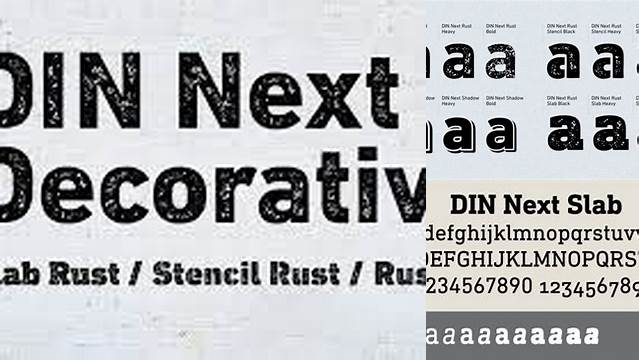
Hey guys! Ever stumbled upon a font that just clicks? Well, let's dive into the world of DIN Next Decorative Pro Slab Rust Black, a font that’s been turning heads and adding a unique touch to designs everywhere. If you're on the hunt for a font that’s both modern and has a vintage vibe, stick around. We're going to explore everything about this font, from its origins to how you can snag it for your projects. Trust me, by the end of this article, you’ll be itching to use it!
What is DIN Next Decorative Pro Slab Rust Black?
Let's start with the basics. DIN Next Decorative Pro Slab Rust Black isn't just any font; it's a carefully crafted typeface that blends the functionality of DIN Next with a decorative, rustic twist. The “Slab” part refers to the slab serifs, those blocky or rectangular serifs that give it a sturdy, industrial feel. The “Rust Black” adds a weathered, vintage effect, making it perfect for designs that need a bit of character. Think old-school posters, industrial logos, or anything that needs a touch of ruggedness. This font stands out because it manages to be both highly readable and visually interesting, a rare combination in the world of typography. The attention to detail in each character ensures that your message is conveyed clearly while maintaining an aesthetic appeal that grabs attention. Whether you’re designing a website, creating marketing materials, or working on a personal project, this font can add a unique and memorable touch.
History and Origin of DIN Next Fonts
To truly appreciate DIN Next Decorative Pro Slab Rust Black, it helps to know where it comes from. The DIN (Deutsches Institut für Normung) fonts have a long history, originating in Germany as standardized typefaces for engineering, traffic signs, and administrative uses. Known for their legibility and simplicity, DIN fonts became a staple in modern design. Over time, designers started playing with variations, leading to the creation of the DIN Next family. These newer versions retained the original’s clarity but added more personality and versatility. DIN Next Decorative Pro Slab Rust Black is one such evolution, taking the classic DIN foundation and injecting it with a decorative, weathered aesthetic. Its roots in standardization make it incredibly functional, while the decorative elements ensure it stands out. Understanding its origins provides a deeper appreciation for the font's unique blend of practicality and style. This font is not just a visual element; it's a piece of design history that brings a sense of heritage and authenticity to any project.
Key Features of the Font
What makes DIN Next Decorative Pro Slab Rust Black so special? Several key features contribute to its unique appeal. First, the slab serifs give it a strong, grounded appearance, making it ideal for headlines and titles. The “Rust Black” effect adds a layer of texture and depth, mimicking the look of aged metal or vintage print. This makes it perfect for projects that aim to evoke a sense of nostalgia or industrial grit. Furthermore, the font maintains excellent readability, even at smaller sizes, thanks to its clean, geometric structure. The spacing and kerning are meticulously designed to ensure a smooth reading experience. Another notable feature is its versatility. While it excels in vintage and industrial-themed designs, it can also be used in more contemporary contexts to add a touch of contrast and character. The font family often includes various weights and styles, providing even more flexibility. In short, DIN Next Decorative Pro Slab Rust Black combines functionality with visual interest, making it a valuable asset in any designer's toolkit.
Using DIN Next Decorative Pro Slab Rust Black in Graphic Design
When it comes to graphic design, DIN Next Decorative Pro Slab Rust Black can be a real game-changer. Its unique blend of industrial and vintage aesthetics makes it perfect for a wide range of projects. Consider using it for branding materials like logos, business cards, and letterheads to give your brand a distinctive and memorable look. It works exceptionally well in posters and flyers, especially those with a retro or industrial theme. The font's strong slab serifs and textured appearance can grab attention and convey a sense of authenticity. In web design, use it sparingly for headlines and titles to add visual interest without sacrificing readability. Pair it with a cleaner, more minimalist font for body text to create a balanced and engaging design. When using DIN Next Decorative Pro Slab Rust Black, pay attention to the color palette. Earth tones, muted colors, and metallic accents often complement its rustic style. Experiment with different weights and styles within the font family to create visual hierarchy and add depth to your designs. By leveraging its unique characteristics, you can create designs that stand out and leave a lasting impression.
Pairing the Font with Other Typefaces
One of the keys to effective typography is pairing DIN Next Decorative Pro Slab Rust Black with other typefaces that complement its style. Since DIN Next Decorative Pro Slab Rust Black is quite bold and distinctive, it's best to pair it with a simpler, more neutral font for body text. A classic sans-serif like Helvetica, Arial, or Open Sans can provide a clean and readable contrast. Alternatively, you could use a more modern sans-serif like Roboto or Montserrat for a contemporary look. If you prefer a serif font for body text, consider something like Garamond or Times New Roman. These fonts have a timeless elegance that can balance the ruggedness of DIN Next Decorative Pro Slab Rust Black. When pairing fonts, pay attention to the overall visual hierarchy. Use DIN Next Decorative Pro Slab Rust Black for headlines and titles to draw attention, and use the paired font for body text to ensure readability. Experiment with different font weights and sizes to create visual interest and guide the reader's eye. The goal is to create a harmonious combination that enhances the overall design.
Examples of Projects Where This Font Excels
Let’s talk real-world examples! DIN Next Decorative Pro Slab Rust Black truly shines in projects that need a touch of vintage charm or industrial edge. Imagine a craft brewery using this font for their labels – instantly, you get a sense of tradition and quality. It's also perfect for coffee shops aiming for that cozy, old-world feel. Think about using it on posters for a local music festival, especially if the vibe is rock, blues, or anything with a raw, authentic sound. Fashion brands with a focus on heritage or workwear can leverage this font to communicate their brand story. In the digital realm, it's great for website headers that need to make a statement, or even in app designs that want to convey a sense of reliability and craftsmanship. From book covers to event invitations, this font adds character and makes your project memorable. The key is to use it where you want to evoke a sense of history, strength, and authenticity.
So there you have it, guys! A deep dive into DIN Next Decorative Pro Slab Rust Black. From its history and key features to where you can find it and how to use it effectively, we've covered all the bases. Remember, typography is more than just choosing a pretty font; it's about communication, branding, and creating an experience. Whether you're a seasoned designer or just starting out, this font can add a unique flair to your projects. Just be sure to respect licensing, consider accessibility, and have fun experimenting! Happy designing!